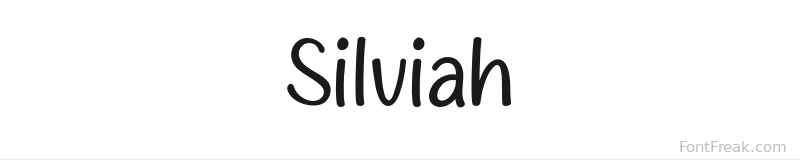
Silviah
About Silviah
Silviah by MJType is a captivating handwritten font that effortlessly blends elegance with a contemporary flair. Designed with a unique touch, this font features a medium stroke weight and subtle contrast, giving it a charming yet readable appearance. The letters are spaciously arranged, allowing for excellent legibility, while the slight flourishes and decorative elements add a personal touch that enhances its character.
This versatile font is perfect for a variety of applications. It shines brightly in wedding invitations, where its graceful curves can evoke romance and sophistication. For restaurant menus, Silviah can create an inviting atmosphere, making the dining experience feel more personal and curated. Additionally, it is well-suited for marketing materials, such as flyers and posters, where a friendly and approachable style can help capture attention. Content creators will also find Silviah invaluable for social media graphics, where its unique charm can elevate posts and engage audiences.
Targeting graphic designers, small business owners, and content creators alike, Silviah offers a fresh alternative to more traditional typefaces. Its modern handwritten style appeals to those looking to add a personal touch to their projects, making it a go-to choice for anyone seeking to stand out.
What truly sets the Silviah font apart is its ability to convey warmth and individuality while maintaining professionalism. Its balance of artistic expression and readability ensures that it can be utilized across various mediums without losing its charm. With the Silviah font free download, users can easily incorporate this stunning typeface into their creative endeavors, making it a must-have for anyone looking to enrich their design toolkit.